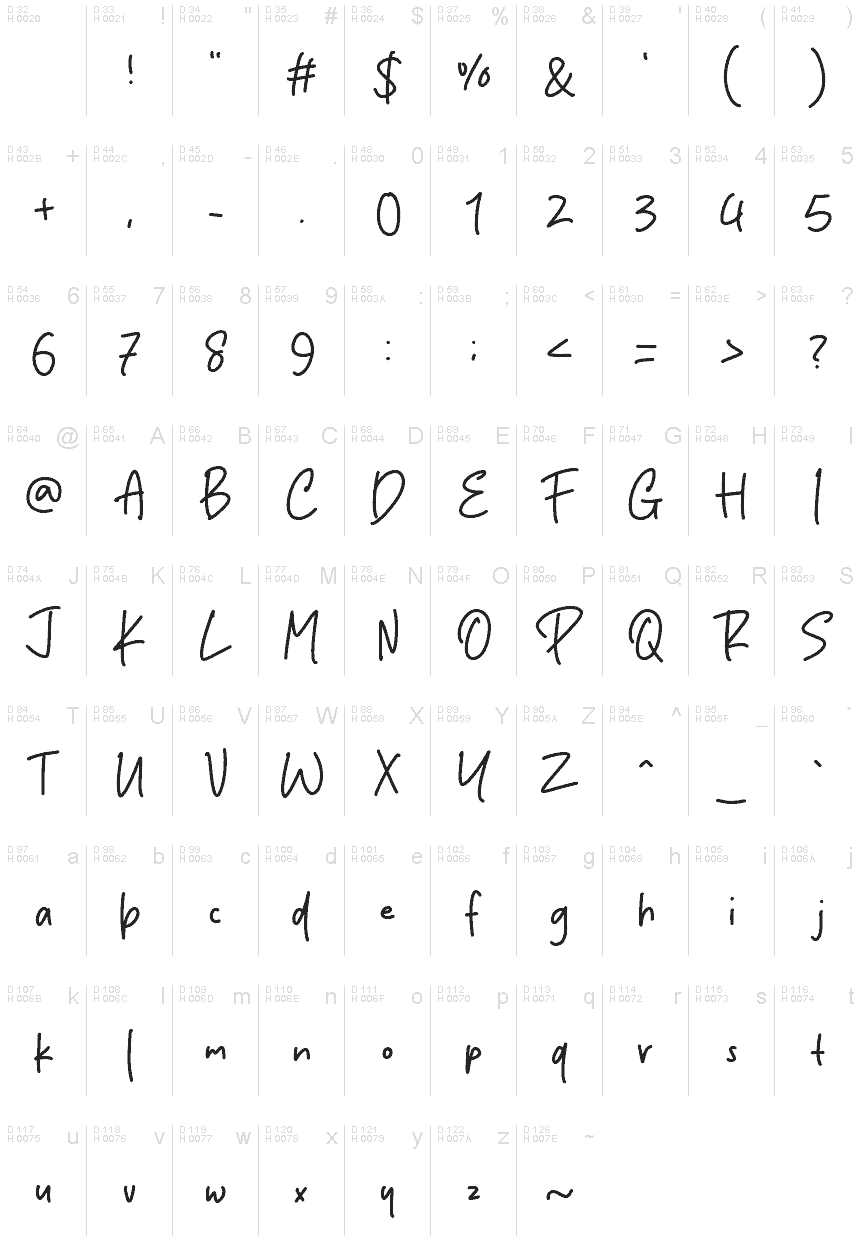
Standing Persona
Standing Persona font is a beautiful handwritten font by MJType, whose light weight and casual strokes will make your texts stand out in elegance. The typeface has a flowing script with an expressive tone and a modern style that both individual characters and phrases exhibit distinctly.